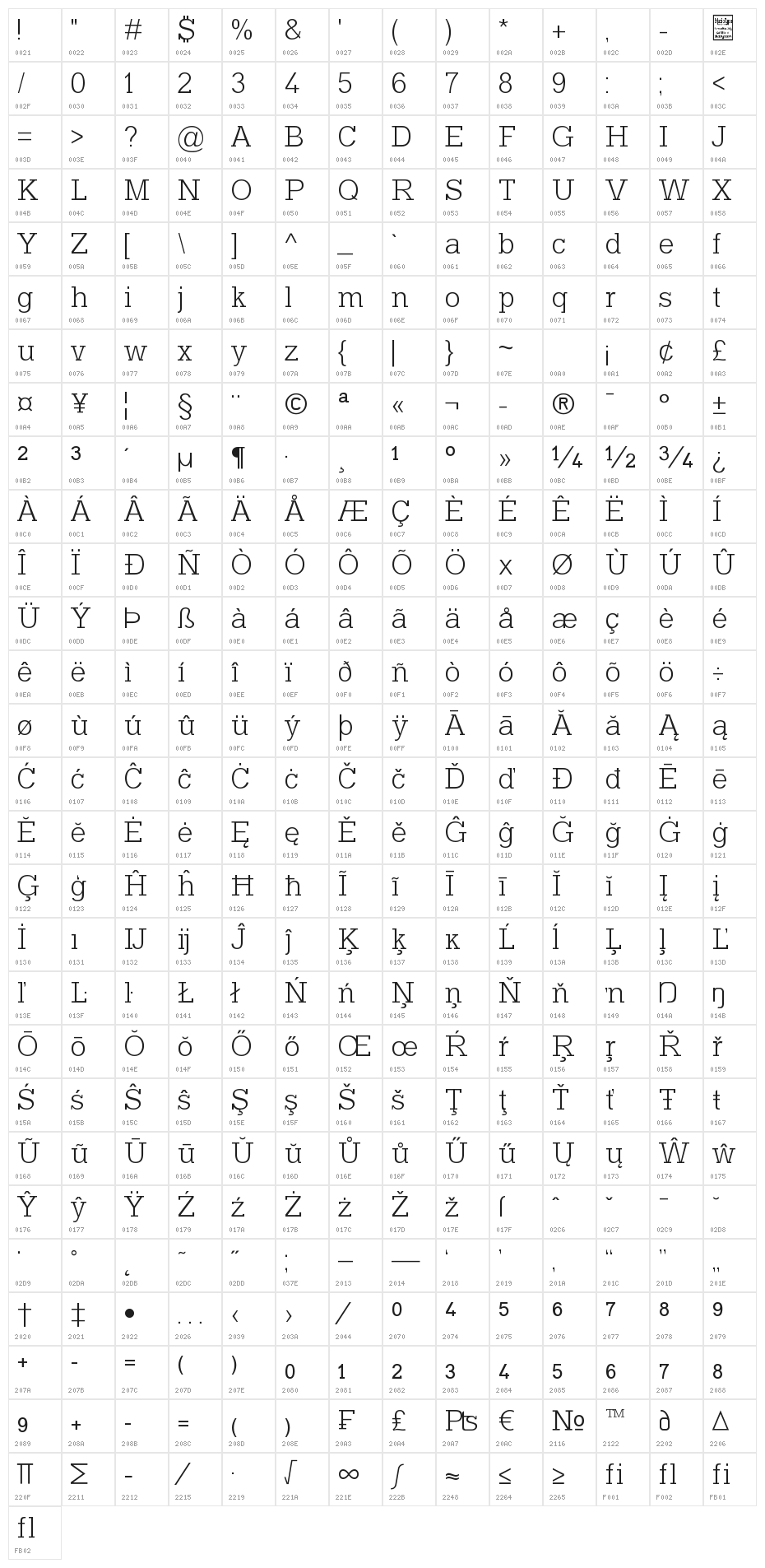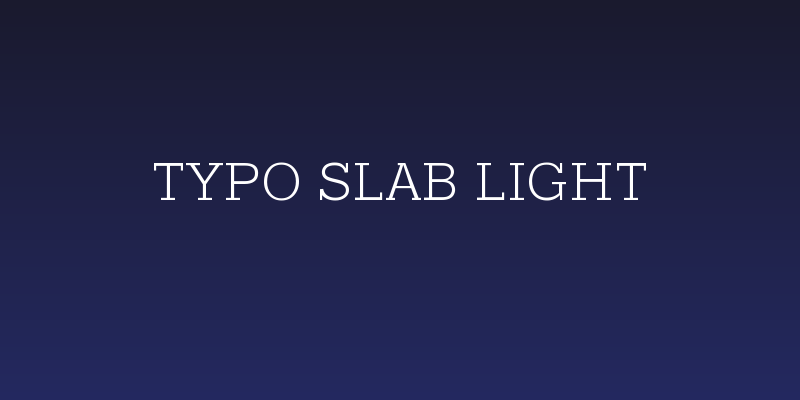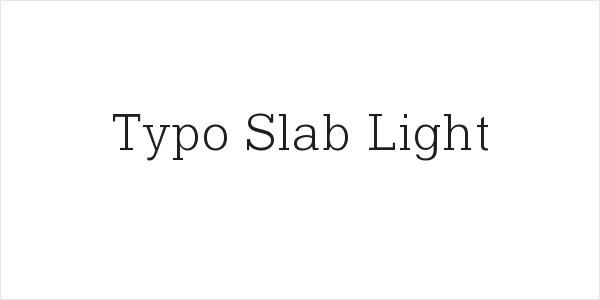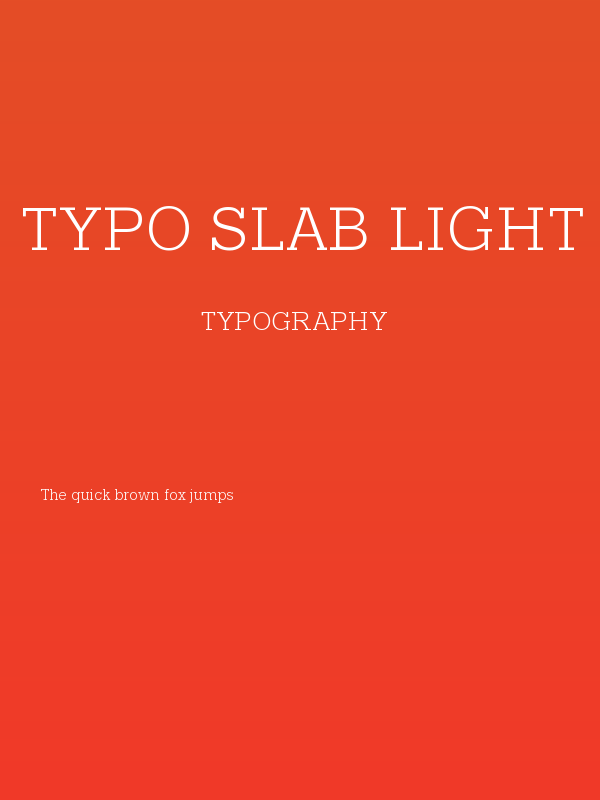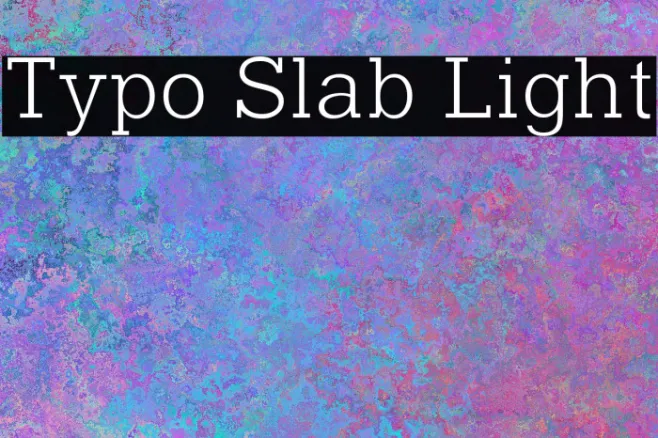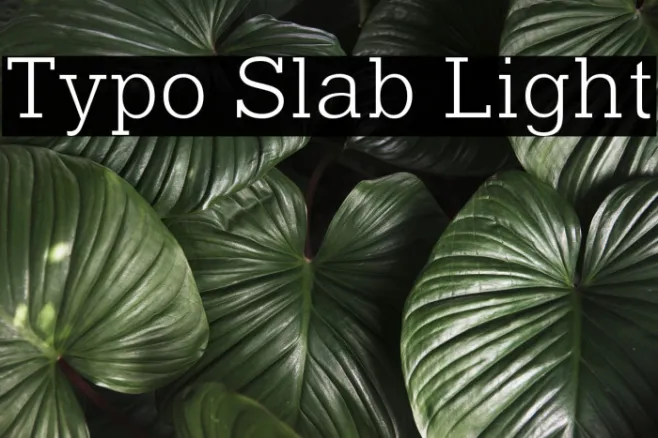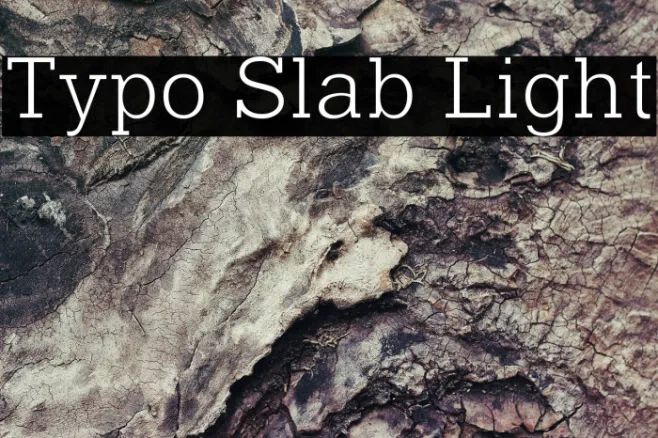
Typo Slab Light Font
Typo Slab Light Description
This font exhibits a clean and modern aesthetic with a slab serif style. The characters are well-defined with a consistent stroke width, providing a balanced and readable appearance. The uppercase letters are bold and authoritative, while the lowercase letters maintain a friendly and approachable look. The numerals are clear and distinct, making them suitable for various applications. Special characters are included, enhancing the font's versatility. The overall design is straightforward yet elegant, making it suitable for both digital and print media.
| Proposed Projects | Ideal for editorial design, branding, advertising, and web design projects. |